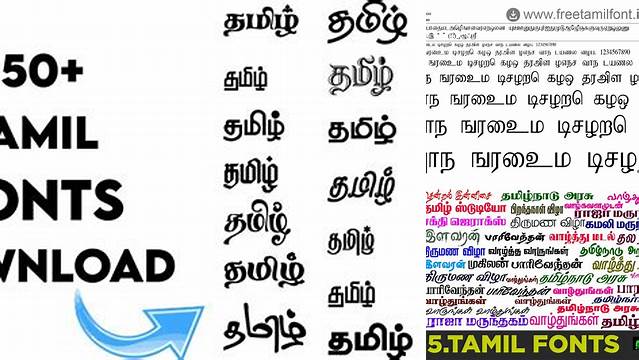
1. Understanding the Importance of Tamil Fonts in Design
When it comes to design, the right font can make all the difference. For projects targeting a Tamil-speaking audience, using appropriate Tamil fonts is crucial. These fonts not only ensure readability but also convey cultural nuances and aesthetic sensibilities. A well-chosen Tamil font can elevate your design, making it more engaging and impactful. Ignoring this aspect can lead to miscommunication and a lack of connection with your target audience. So, choosing the right font is not just about aesthetics; it's about effective communication and cultural relevance.
2. Why Use a Dedicated Tamil Font Design App?
Why bother with a dedicated app when you could just use any font? Well, guys, it's all about specialization! A dedicated Tamil font design app is built specifically to handle the complexities of the Tamil script. These apps often come with features like ligatures, character variations, and advanced typography settings that generic design software might not offer. Plus, they often include a wide range of pre-designed Tamil fonts, saving you the hassle of searching for them individually. Using these apps can significantly speed up your workflow and ensure that your Tamil text looks its absolute best.
3. Key Features to Look for in a Tamil Font Design App
Not all Tamil font design apps are created equal, so what should you be looking for? Here are a few key features:
- A wide selection of fonts: The more fonts, the more creative options you have! Look for an app with a diverse library that includes both traditional and modern styles.
- Customization options: Being able to adjust things like font size, spacing, and kerning is crucial for creating polished designs.
- User-friendly interface: No one wants to struggle with a complicated app. Choose one that's intuitive and easy to navigate.
- Import/export capabilities: Make sure you can easily import your designs into other software and export them in various formats.
- Free options: There are many fantastic free apps out there, so start there and see if they meet your needs before considering paid options.
4. Top Free Tamil Font Design Apps Available
Alright, let's get to the good stuff! Here are some of the top free Tamil font design apps you can download today:
4.1. App 1: (Replace with Actual App Name)
This app is a fantastic option for beginners, thanks to its intuitive interface and a decent selection of fonts. It's perfect for creating quick social media graphics or simple text-based designs. The customization options are fairly basic, but it's a great starting point for anyone new to Tamil font design. Plus, it's totally free!
4.2. App 2: (Replace with Actual App Name)
If you need a bit more power, this app might be the one for you. It boasts a larger font library and more advanced customization features. You can even import your own fonts if you have them. It's a bit more complex than App 1, but the extra features are well worth the learning curve for serious designers. This app is particularly useful for projects that require a high degree of precision and attention to detail.
4.3. App 3: (Replace with Actual App Name)
For those who value simplicity, this app is a winner. It focuses on a streamlined design process, making it quick and easy to create beautiful Tamil text. While it may not have as many bells and whistles as some other apps, it's a fantastic choice for everyday use and for those who prefer a minimalist approach. The app's focus on ease of use makes it a great option for users of all skill levels, from beginners to experienced designers.
5. Downloading and Installing Your Chosen App
Downloading and installing these apps is usually a breeze. Most are available on the Google Play Store (for Android) or the App Store (for iOS). Simply search for the app by name, tap "Install," and you're good to go! Make sure you have enough storage space on your device before you start the download. Once installed, the app should be ready to use immediately. If you encounter any issues, check the app's help section or the developer's website for troubleshooting tips.
6. Setting Up Your App for Tamil Font Design
Once you've installed your app, there might be a few things you need to do to get it set up for Tamil font design. This might involve selecting Tamil as your preferred language or installing a Tamil keyboard if you don't already have one. The app's settings menu should guide you through this process. Taking the time to set up your app correctly will ensure that you have a smooth and efficient design experience. Don't skip this step – it's crucial for optimal performance!
7. Exploring the Font Library and Options
- Using fonts that don't support Tamil characters: Always double-check that the font you're using fully supports the Tamil script.
- Not testing your design: Always test your design on different devices and in different contexts to make sure it looks its best.
11. Exploring Different Styles of Tamil Fonts
Tamil fonts come in a wide range of styles, from traditional and elegant to modern and bold. Exploring these different styles can help you find the perfect font for your project. Here are a few popular categories:
- Serif fonts: These fonts have small strokes or